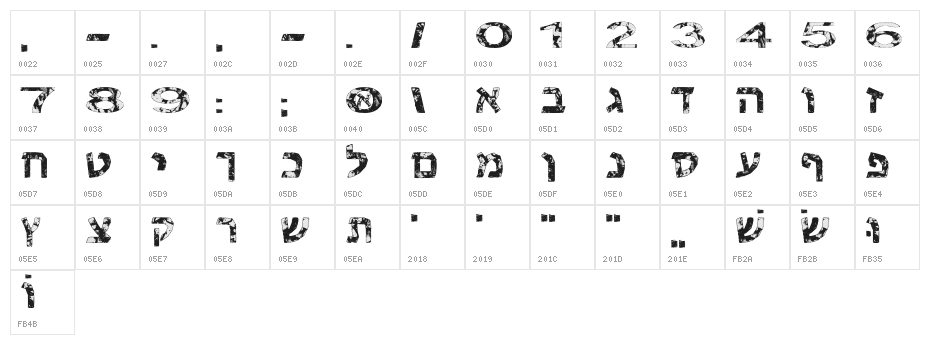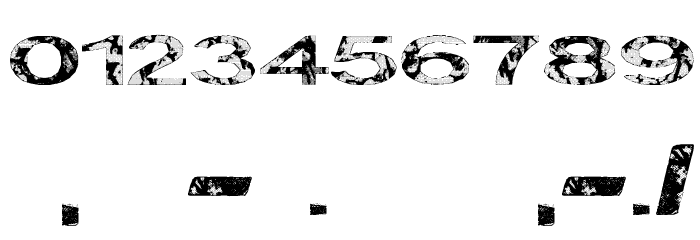
Baznat Font
Baznat Description
This font features a distressed, grunge aesthetic with a textured appearance that gives it a worn, vintage feel. The characters are bold and impactful, with a consistent level of distress across each letter and number. This style evokes a sense of ruggedness and authenticity, making it ideal for projects that require a raw, edgy look. The numbers and special characters maintain the same distressed style, ensuring uniformity throughout the font. The overall design is eye-catching and suitable for creative and artistic applications.
| Use Case | Logos, Posters, Headlines |
| Proposed Projects | Ideal for album covers, posters, branding for edgy products, and any design needing a vintage or rugged feel. |